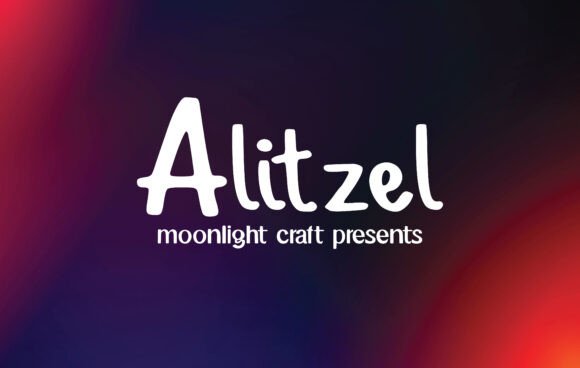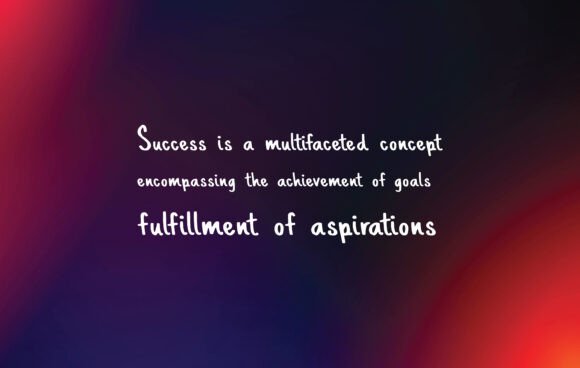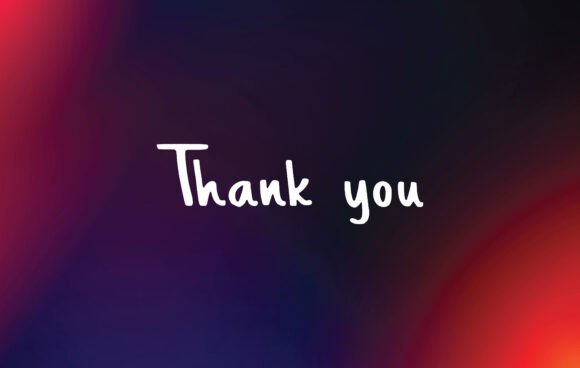
Alitzel Font: A Cute Handwritten Script for Cricut & DIY Projects
About the Alitzel Font
Elevate your designs with Alitzel Font, a font that combines sophistication with readability. Alitzel is a lovely and beautiful handwritten font.This font has the potential to take your creative ideas to the highest level.It is the best choice for creating eye catching logos, branding and quotes.
Alitzel Font Usage Examples
Alitzel Font Example